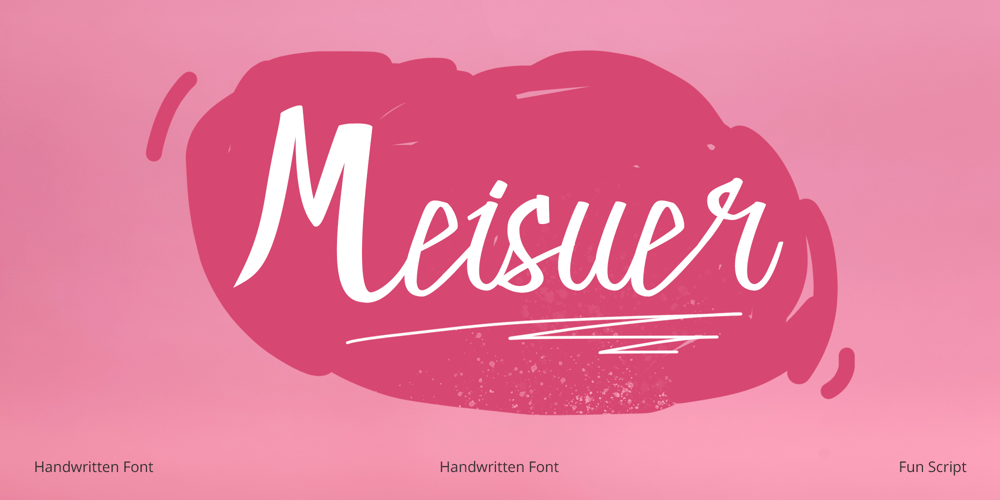
Meisuer Font Family was designed by Trio Nazzar Saputra, Wahyu Hadi Yuana and published by Craft Supply Co. Meisuer contains 1 styles and family package options. Introducing Meisuer – Handwritten FontA Delightfully Cute and Fun ScriptMeisuer – Handwritten Font is more than just a font; it’s a charming and whimsical script cursive typeface that brings a cheerful and playful vibe to your designs.Irresistibly CuteMeisuer is undeniably cute; each character exudes cuteness with its endearing strokes and whimsical swirls. It’s perfect for creating designs that radiate positivity and cuteness, making it impossible to resist.Infusing PlayfulnessFurthermore, this font effortlessly injects playfulness into your projects. Whether it’s greeting cards, invitations, or children’s books, Meisuer adds a touch of joy and lightheartedness that takes your design to the next level.Versatile CheerfulnessMeisuer’s versatility shines in various design applications. Its friendly appearance appeals to all age groups, making it a go-to choice for cheerful projects that need to reach a wide audience.In ConclusionIn conclusion, Meisuer – Handwritten Font is your ultimate tool for creating designs that are cute, fun, and filled with cheerful vibes. Embrace the whimsical charm of Meisuer, and infuse your projects with a delightful playfulness that captivates hearts and brings smiles to faces.